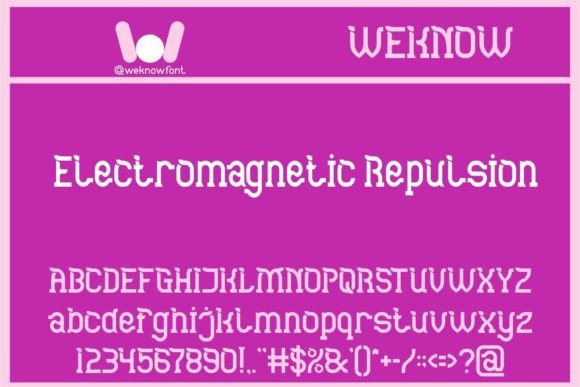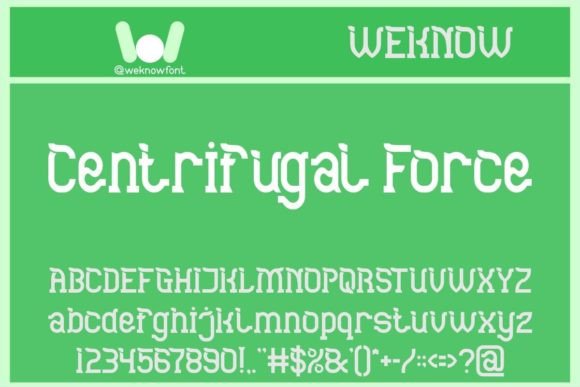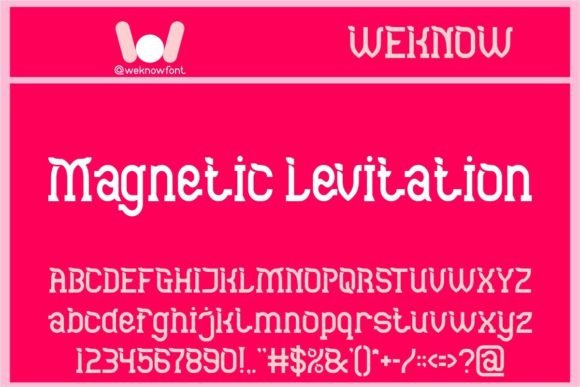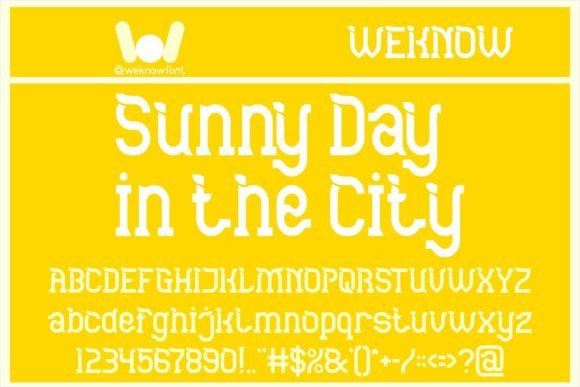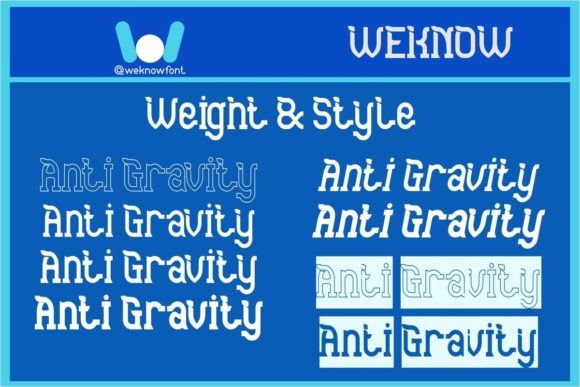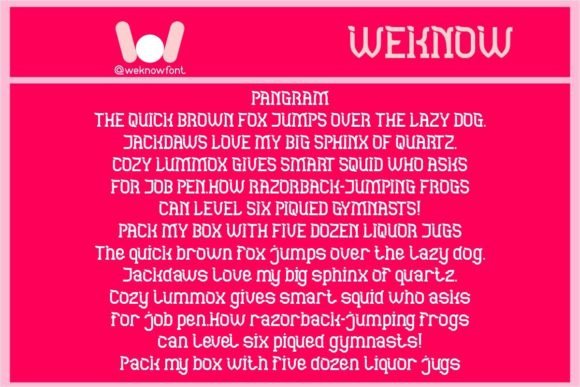
The Birth of a New Creative Era
Imagine you’re brainstorming for a project, and suddenly, an idea strikes you – one that defies gravity and pushes the boundaries of creativity. It’s that moment when everything clicks, and your vision starts to take shape. This is the power of the Anti Gravity Font, a game-changing display font that’s about to revolutionize the way you design.
This imaginatively diverse techno-scifi psychedelic display font is more than just a tool; it’s a key to unlocking your full creative potential. With its unique design, you can create unforgettable logos, memorable logotypes, and stand-out headlines that leave a lasting impression. Whether you’re a designer, artist, or entrepreneur, the Anti Gravity Font is your ticket to elevating your brand identity and taking your creative projects to new heights.
Anti Gravity Font Key Features
- Unique Characteristic: The Anti Gravity Font features an unconventional, hand-drawn design that appears to defy gravity, giving it a unique and eye-catching look
Designer Review: Anti Gravity Font
Overall, I’d say the Anti Gravity Font is an interesting addition to the world of typography. There are some aspects where it truly shines, but there are also some limitations that might make it less suitable for certain projects.
- The font’s unique, futuristic design is sure to grab attention and stand out from the crowd.
- The font’s varying line widths and letterforms create a sense of movement and dynamism, which is perfect for titles, headings, or other emphasis.
- The font is well-suited for digital use, with clear rendering on various screen sizes and resolutions.
- The font’s irregular shapes and letterforms can make it difficult to read in long blocks of text, especially at smaller sizes.
- The font may not be the best choice for body text or paragraphs, as it can be tiring to read in large quantities.
- The font’s futuristic design may not be suitable for all projects, especially those with more traditional or conservative tone.
Overall, I’d recommend the Anti Gravity Font for projects that require a bold, attention-grabbing title or heading, but may not be the best choice for body text or projects that require a more traditional tone.
Anti Gravity Font: A Practical Application Guide
Tips for Getting the Most Out of the Anti Gravity Font
For a more dramatic effect, use the Anti Gravity font in conjunction with other creative fonts. Experiment with different font sizes, colors, and arrangements to achieve a unique look. Avoid using the font in situations where readability is crucial, such as in body text or headings.
The Anti Gravity font is ideal for creative projects, such as: title cards, posters, and social media graphics. It’s also suitable for use in presentations, infographics, and other visual materials where a bold, eye-catching font is desired.